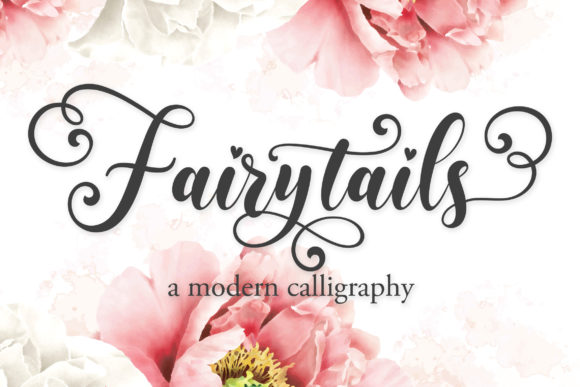
Unleash the magic of Fairytails Font, an enchanting handwritten typeface that weaves elegance and modernity into every letterform. Step into a world of creativity where words dance with grace and artistry, transforming your design projects into captivating masterpieces.
Fairytails Font belongs to the script font family, embodying the beauty of flowing, cursive writing. Its meticulously crafted characters exude a touch of luxury and sophistication, adding an air of refinement to your digital creations. Each stroke and swirl is a testament to the passion and dedication of Almeera Studio, the creative minds behind this typographic gem.
Whether you're seeking fonts for Instagram to elevate your social media presence, or searching for calligraphy scripts to add a personal touch to your DIY projects, Fairytails Font is your perfect companion. Its versatility knows no bounds, allowing you to express your unique style effortlessly.
Immerse yourself in the endless possibilities that Fairytails Font offers. Let your imagination soar as you create stunning logos, eye-catching social media graphics, and heartfelt wedding invitations. Bring your creative visions to life with this font's captivating allure, turning ordinary words into extraordinary works of art.
With Fairytails Font, the possibilities are limited only by your imagination. Embrace the magic, unleash your creativity, and let your designs bloom with elegance and charm. Dive into the world of Fairytails Font today and transform your creative endeavors into enchanting realities.